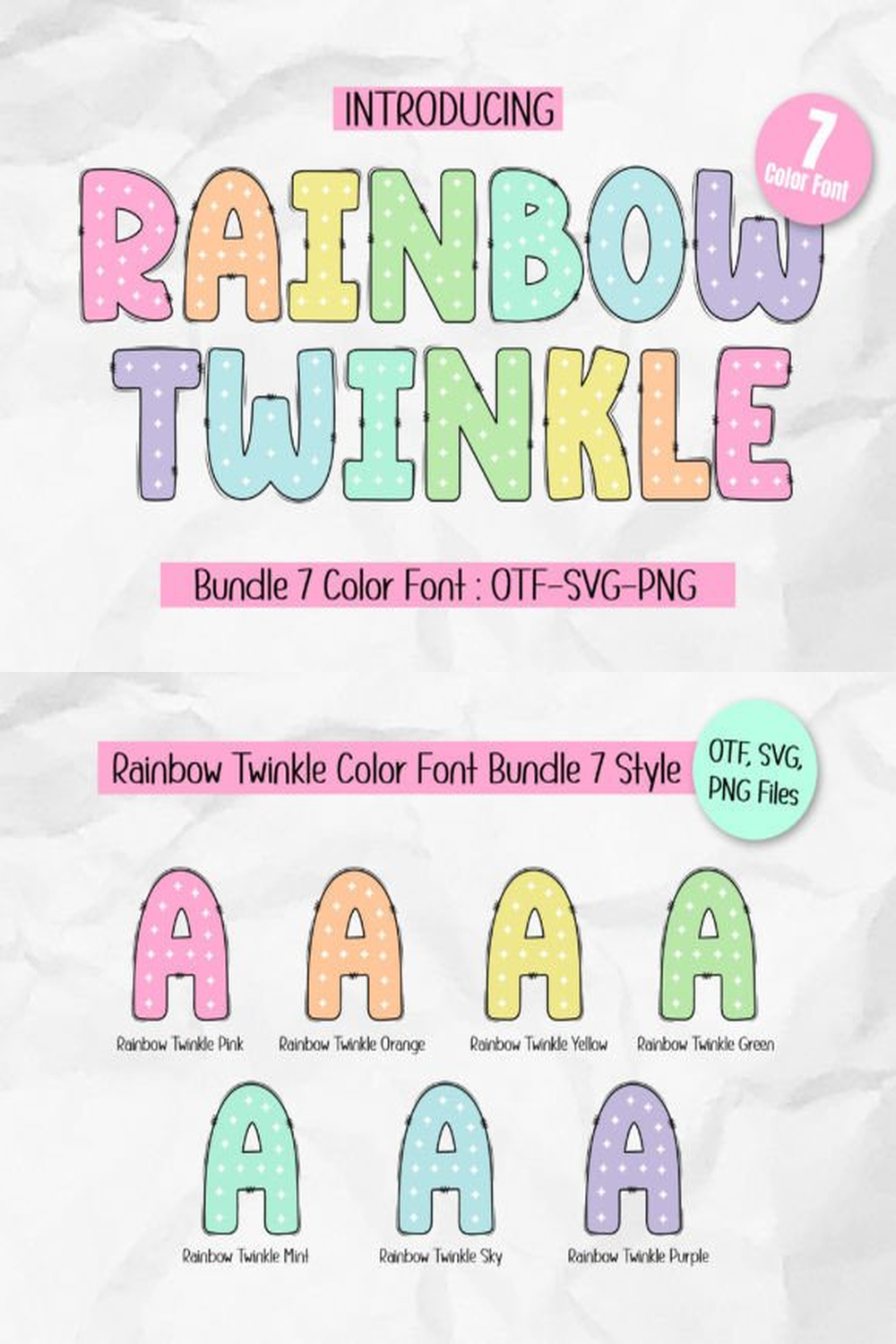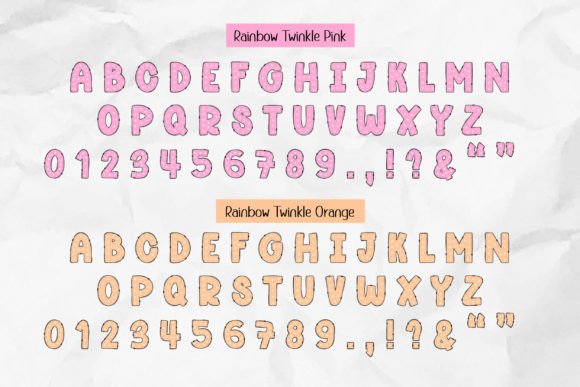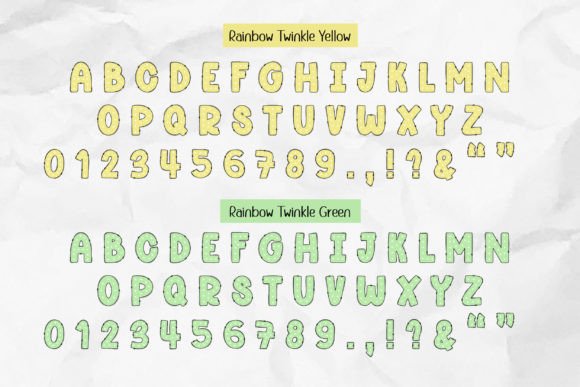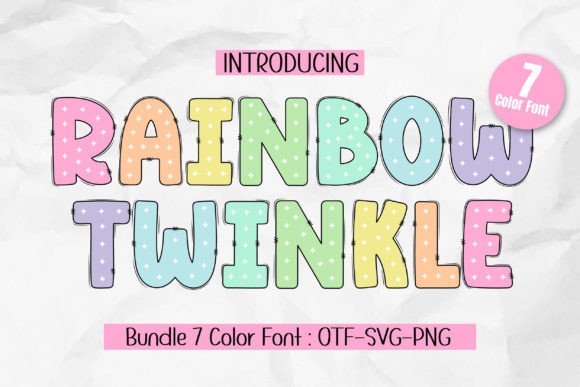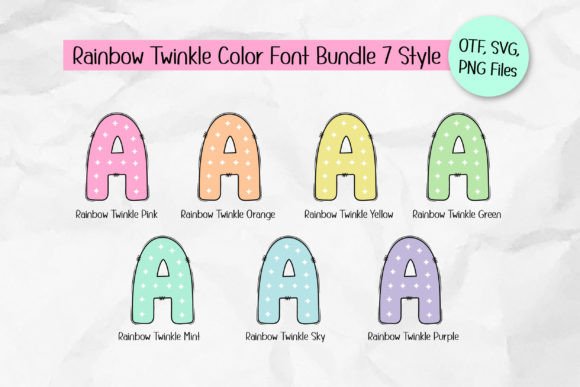
Rainbow Twinkle Font: A Playful Color Font for Cricut & Craft Projects
About the Rainbow Twinkle Font
The Rainbow Twinkle Font offers a perfect balance of form and function for your design needs. Introducing “Rainbow Twinkle” a playful and charming color font design that adds a touch of whimsy to any project. With its vibrant and eye-catching appearance, “Rainbow Twinkle” is sure to stand out. This font includes 7 different colors, allowing for endless creative possibilities. Whether you’re designing posters, T-shirts, home decor, or Craft’ projects, “Rainbow Twinkle” is the perfect choice to add a pop of color and fun to your designs.